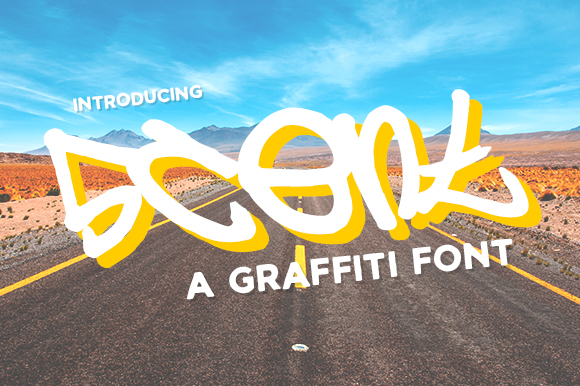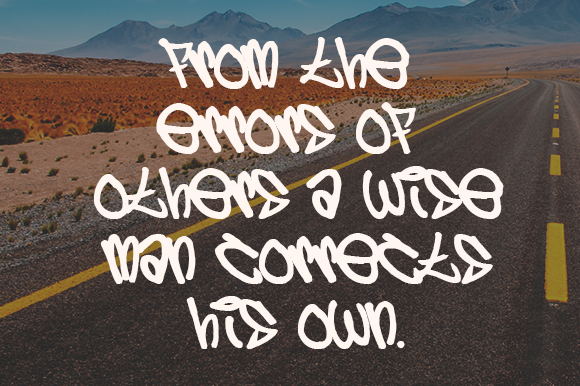
5cent Free Graffiti
About 5cent Free Graffiti Font
5cent is a cool and hip graffiti font from designer Johan Waldenstrom. This looks great as a headline font to add some character and grit to your creative projects.